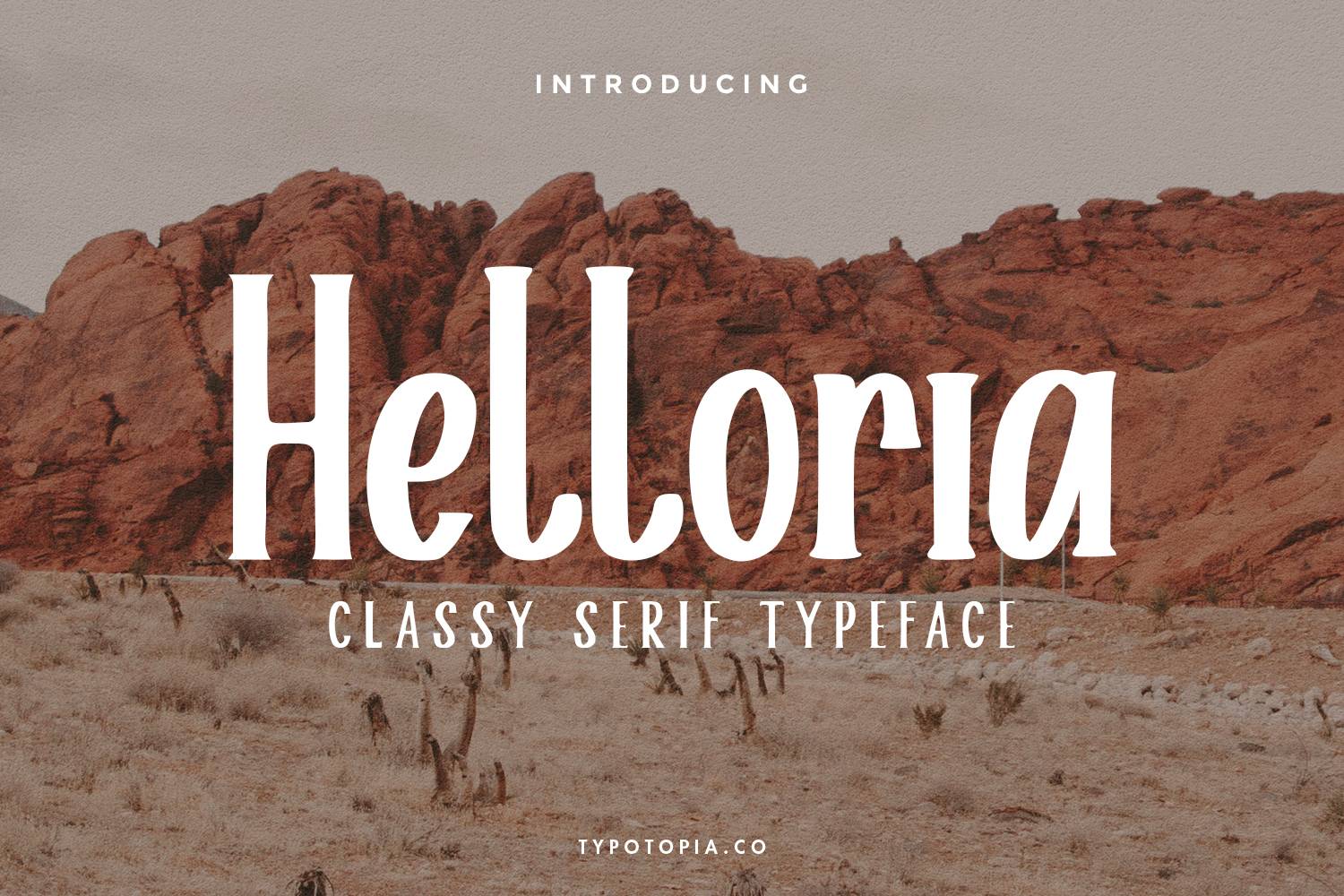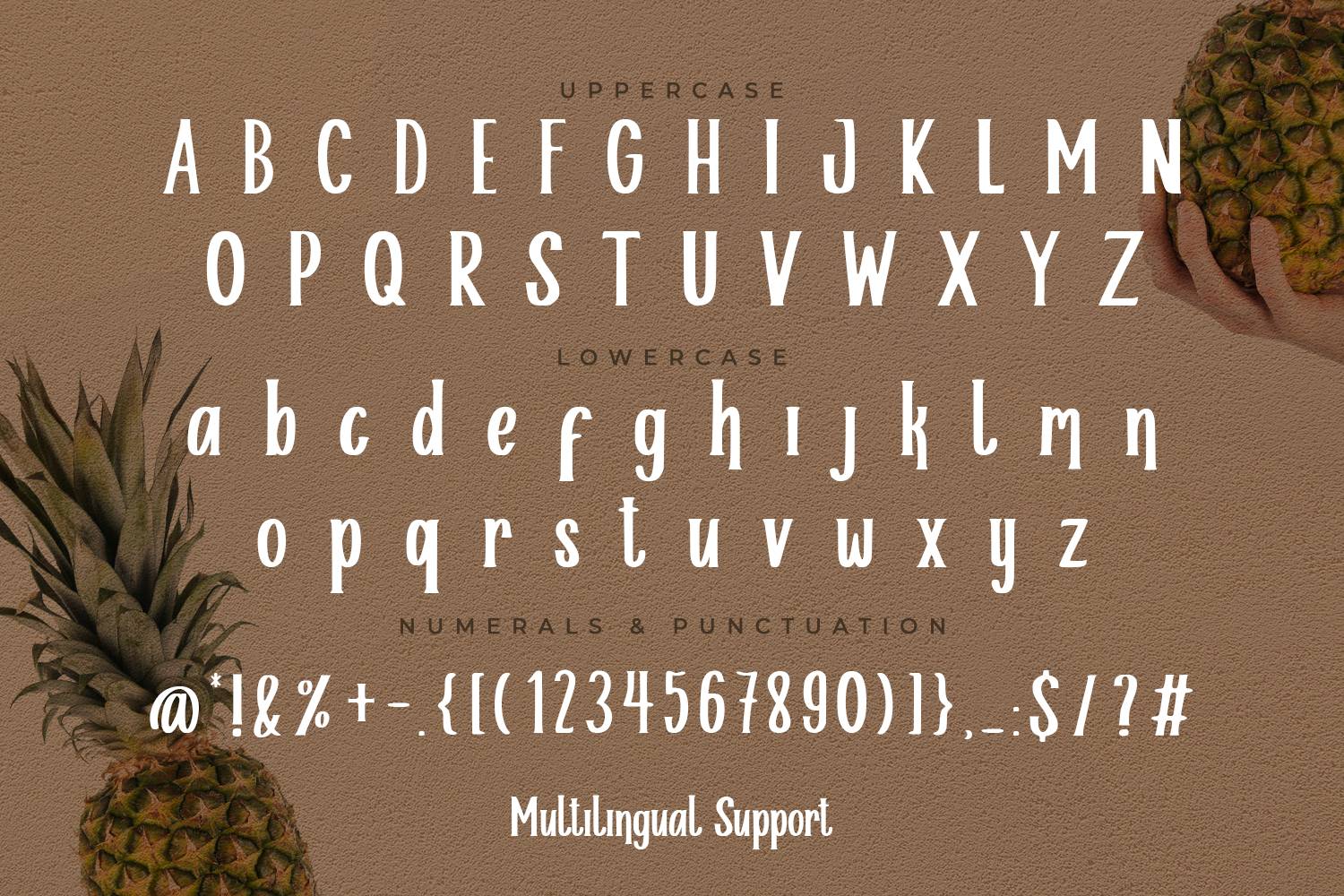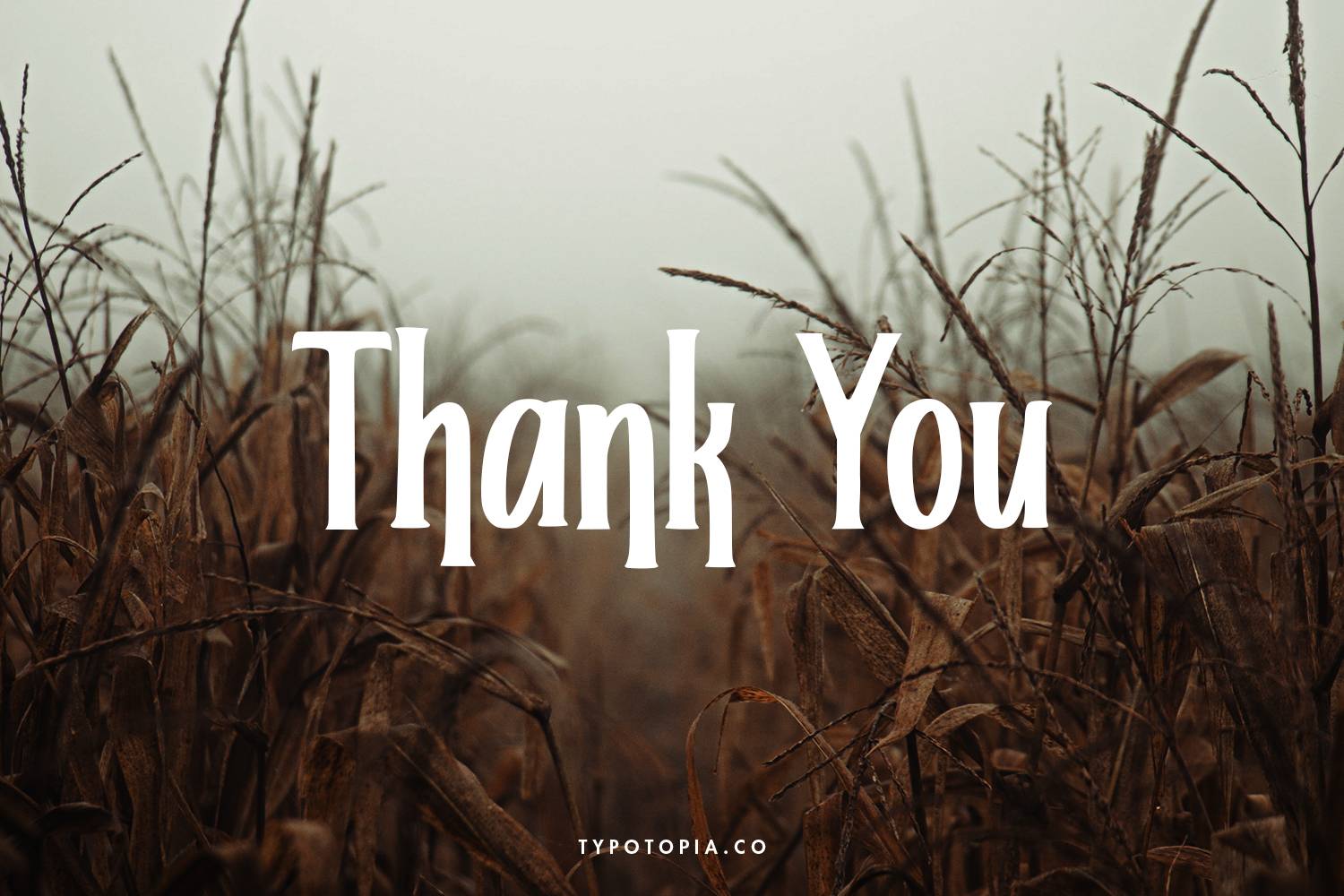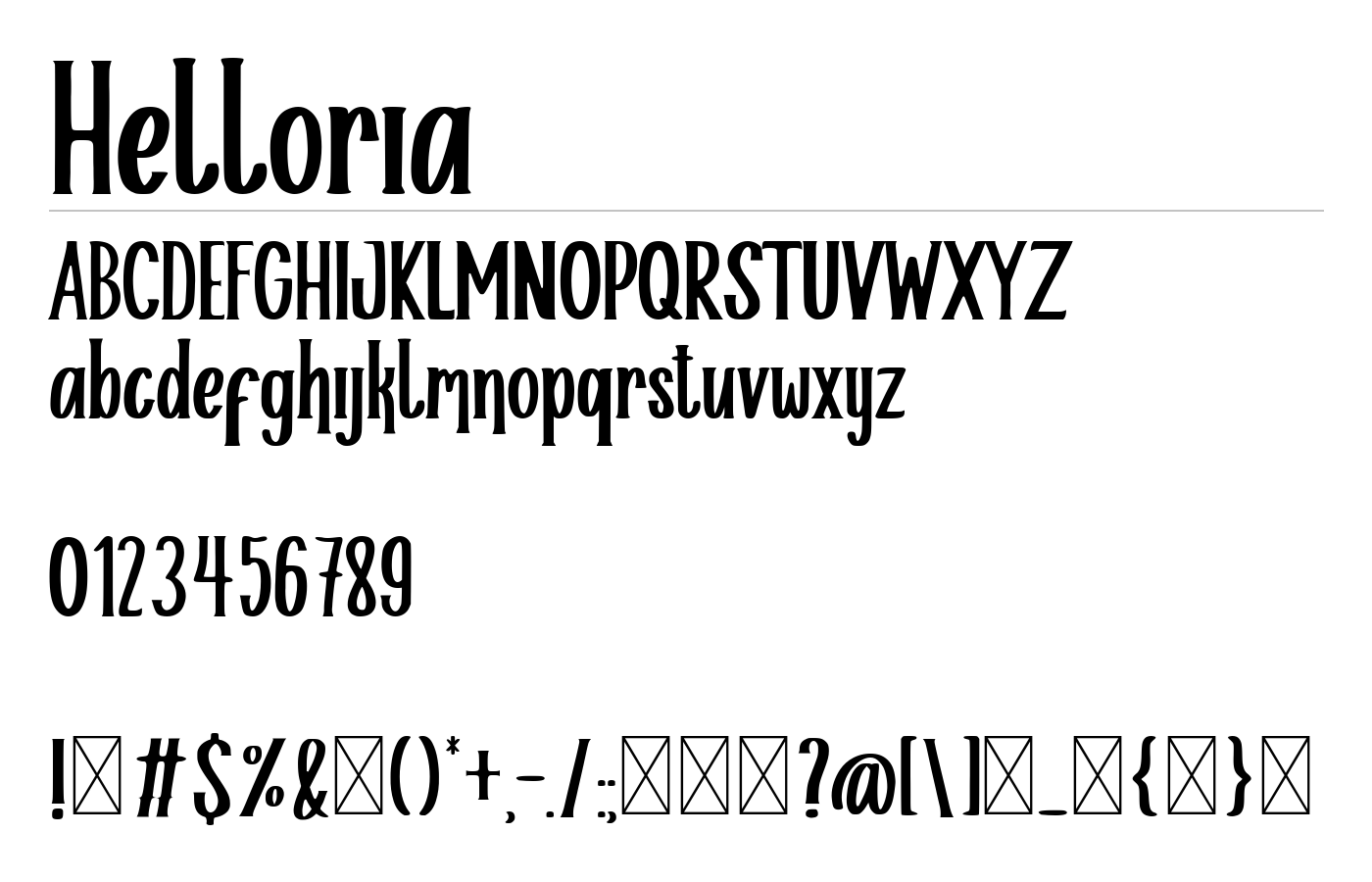
Helloria is a distinctive serif font with a tall, condensed structure and moderate stroke contrast that lends it a vintage yet quirky personality. Its sharp, bracketed serifs combined with playful letterforms make it perfect for eye-catching headlines, packaging, and branding that want to convey a unique, confident, and slightly whimsical vibe. This font works well where you want to stand out with a retro-inspired but fresh and energetic style.
Helloria Font
About Helloria Font